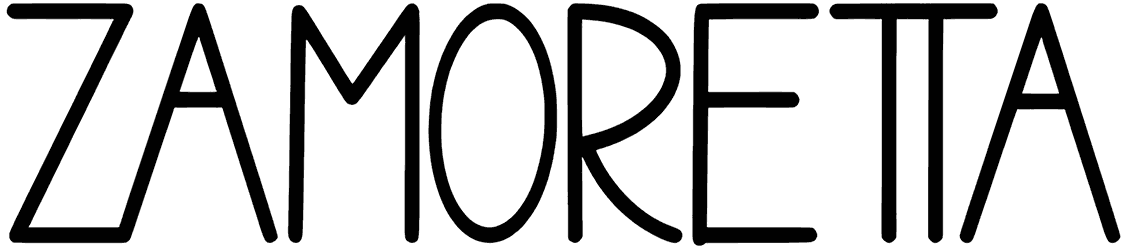
Zamoretta Font
Since Zamoretta is one of the main options of professional graphic designers for creating captivating graphic content like movie posters, business cards, flyers, applications, or social media posts, we would like to advise you to pick up this all-caps sans serif font.
This masterpiece comes with clean shapes and a simple style, thus it can evoke a sense of momentum, modernity, remarkably, or whimsicality. Needless to say that you can save lots of time and energy by visiting our archive.